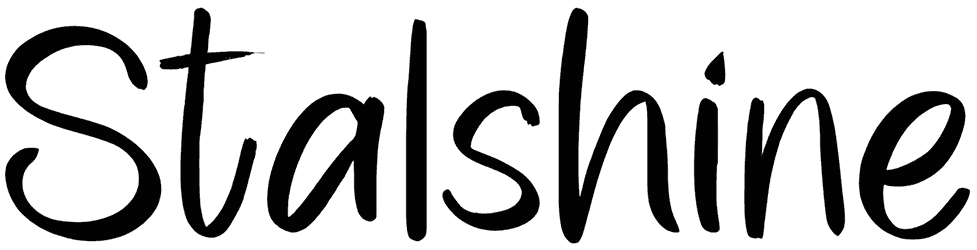
Stalshine Font
Let’s create a modern and beloved look for your next design and create an intimate connection with your viewers. As a handwritten font, Stalshine can show off your minimal design with its soft and casual letters. With an almost full backup of characters, this script font can be a nice showcase for your novel layouts, from postcards to apparel.